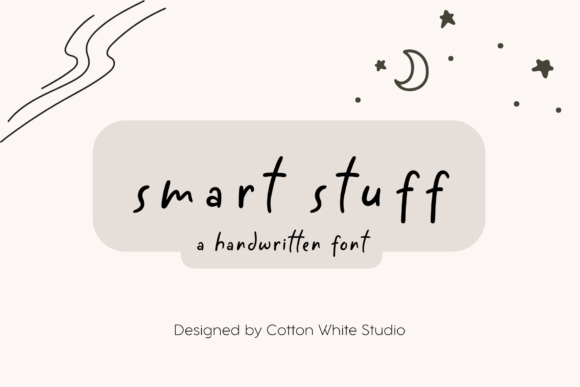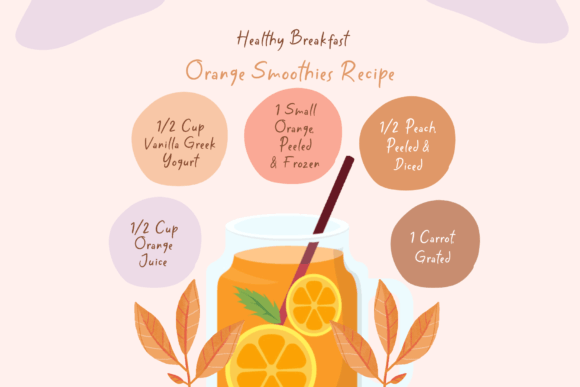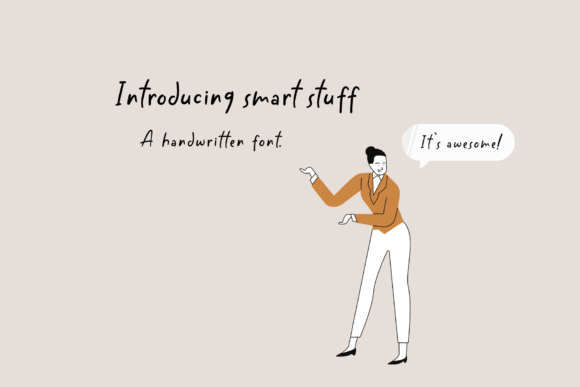
A Cute and Playful Handwritten Script
Smart Stuff is an adorable handwritten font that adds sweetness and charm to any design. The font features playful curves and smooth strokes that make it feel warm, friendly, and whimsical. Perfect for any project needing a fun, energetic touch, Smart Stuff makes your designs stand out with personality.
Whether you’re creating greeting cards, social media graphics, or branding materials, Smart Stuff brings a lively, joyful vibe that makes your work truly shine.
Smart Stuff is incredibly versatile and can be used in a variety of design projects. It’s ideal for greeting cards, birthday invitations, and celebration designs. The charming script creates a delightful atmosphere that makes every occasion feel extra special.
Use Smart Stuff for logos, business cards, and branding materials. The cute and inviting style gives your brand a playful, approachable feel while still remaining polished and professional.
This font is also great for social media graphics, blog headers, and Pinterest pins. The whimsical strokes grab attention and add a fun, engaging element to your content.
Smart Stuff works wonderfully for product packaging, boutique labels, and merchandise. The friendly design makes your products stand out and feel unique, attracting customers with its charm.
Clear, Fun, and Easy to Read
Even with its playful character, Smart Stuff remains clear and legible at any size. The balanced spacing between letters ensures your text stays neat, whether you use it for large headlines or smaller captions.
Many designers pair Smart Stuff with a simple sans-serif font for contrast. Use Smart Stuff for titles and the sans-serif for body text. This combination creates visual interest and helps maintain readability.
To highlight Smart Stuff’s playful charm, use bright backgrounds and cheerful colors. Shades like pastel pink, mint green, and light yellow allow the font’s curves to stand out without distraction.
When designing greeting cards, invitations, or social media posts, consider adding fun illustrations or doodles that match the whimsical feel of the font. For marketing materials and branding, keep layouts simple so the font takes center stage.
Think about the mood you want to create. Smart Stuff is perfect for designs that should feel fun, joyful, and full of life.
Smart Stuff is more than just a handwritten font. It’s a creative tool that brings warmth and personality to your designs. Its playful and smooth strokes add a friendly, charming touch to every project.
Adding Smart Stuff to your font collection means you’ll always have a go-to option for creating joyful, engaging designs. From branding and packaging to social media and invitations, this font adapts effortlessly to all kinds of creative work.